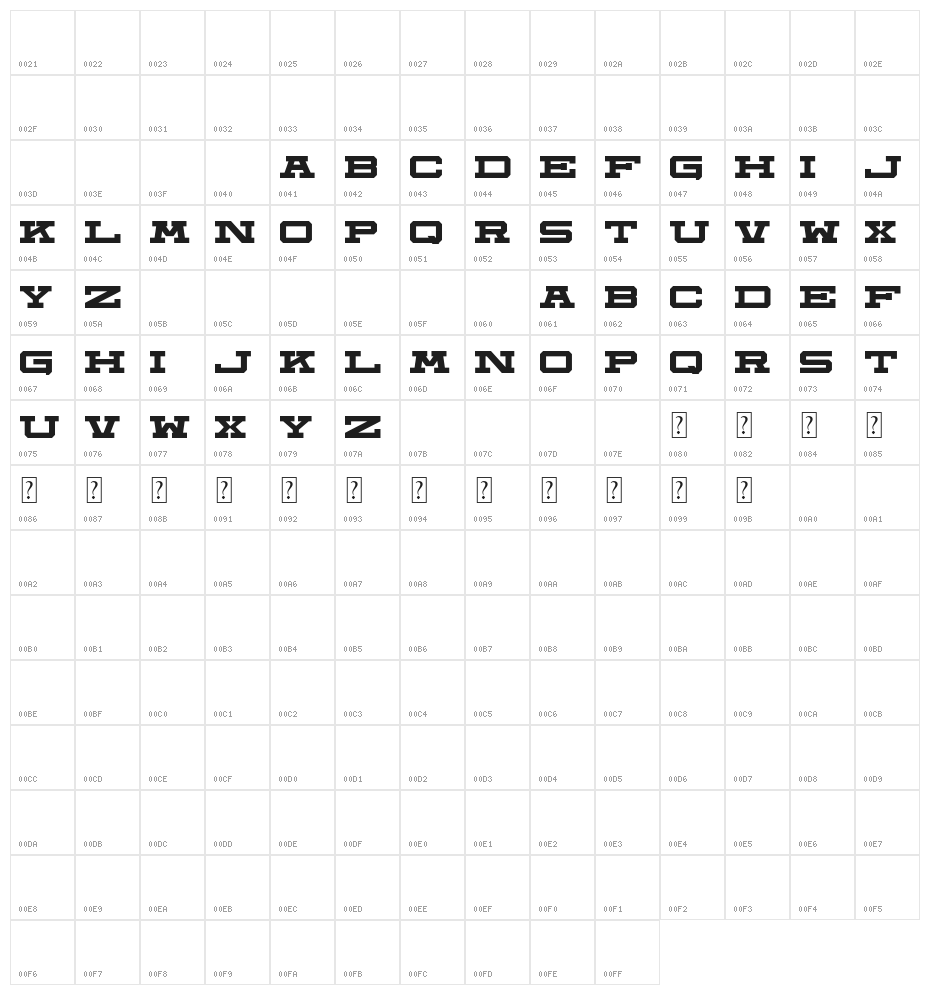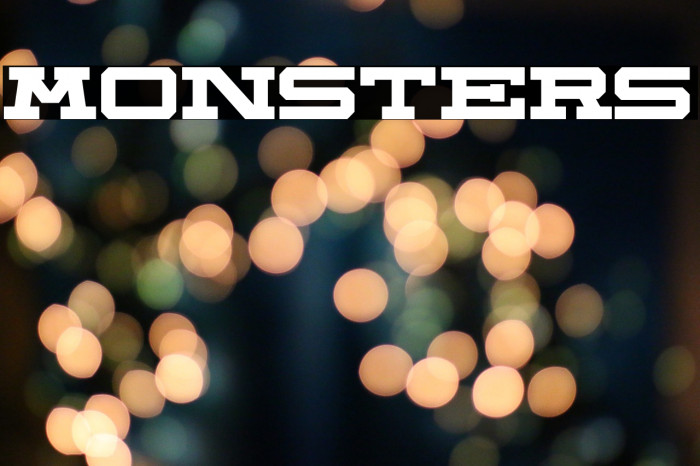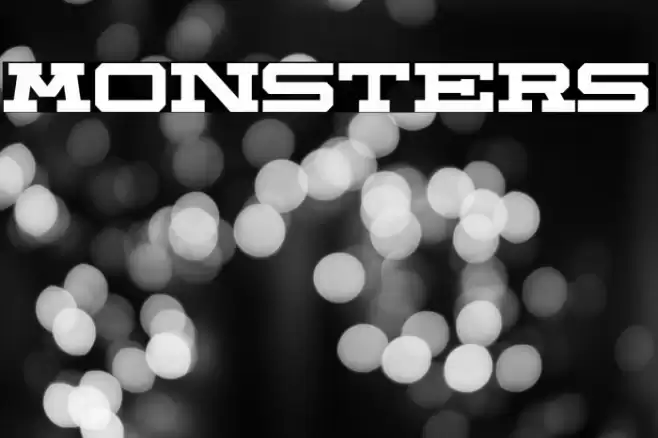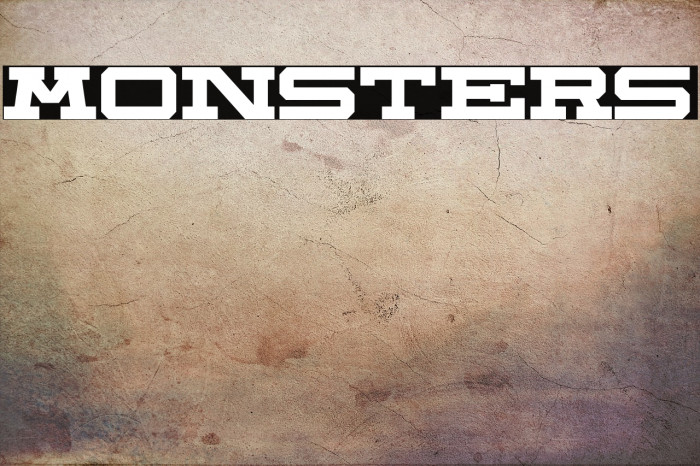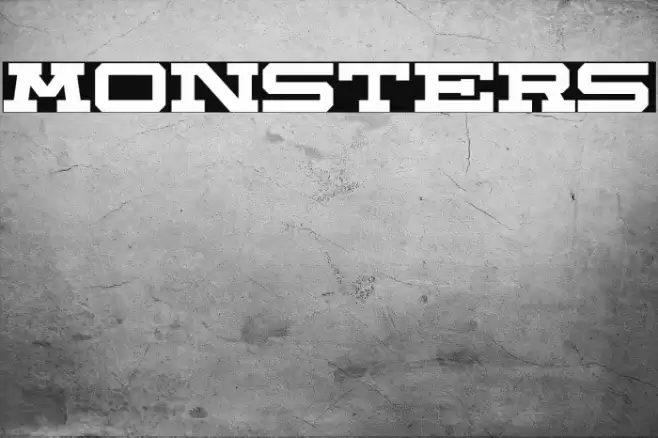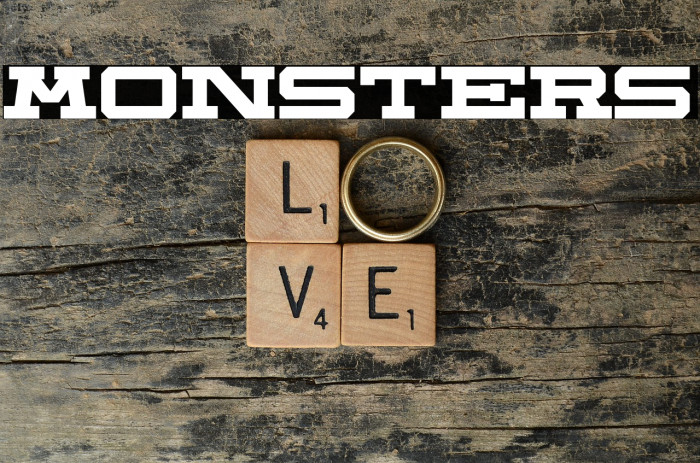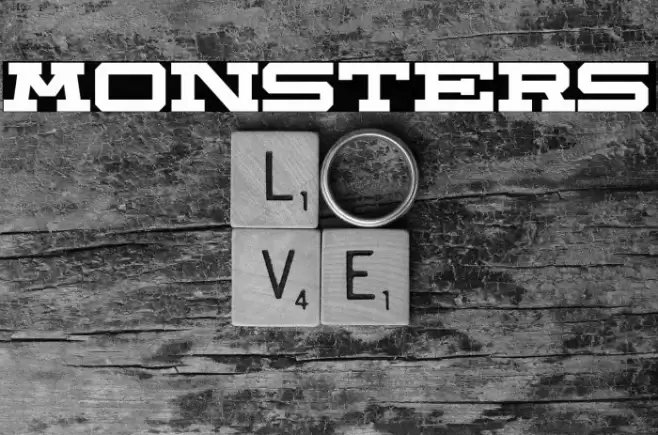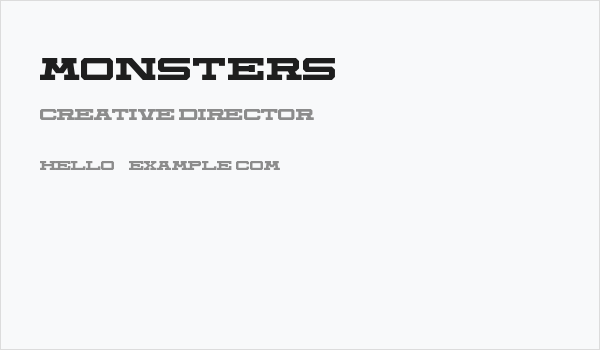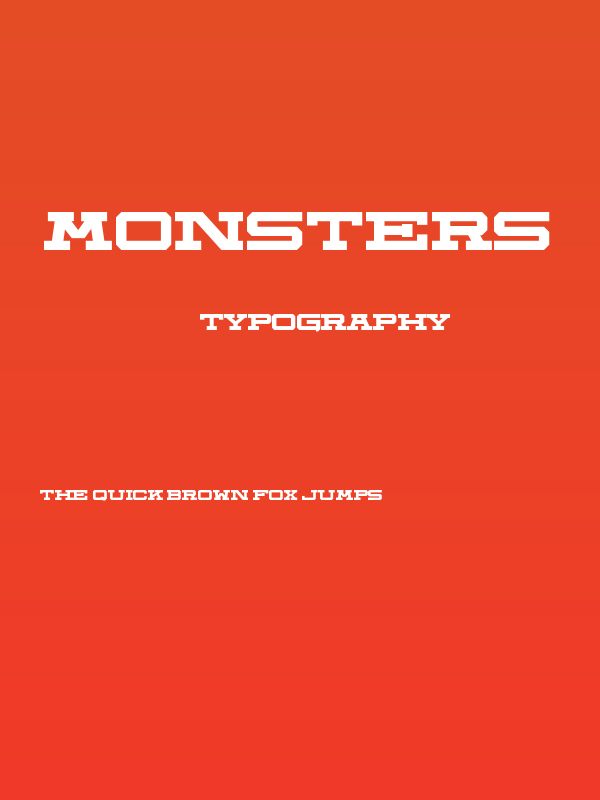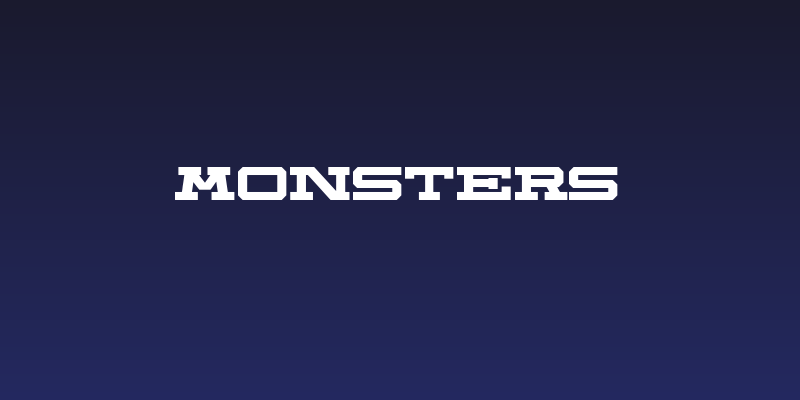
Monsters Font
Monsters Description
This font features a bold, blocky design with strong geometric shapes and a heavy weight. The characters are all uppercase, with a consistent height and width, creating a uniform appearance. The strokes are thick and solid, giving the font a powerful and commanding presence. The design is reminiscent of industrial or military styles, with a modern twist. The edges are sharp and precise, adding to the font's assertive look. This font is ideal for making a strong visual impact, suitable for headlines or titles that need to stand out.